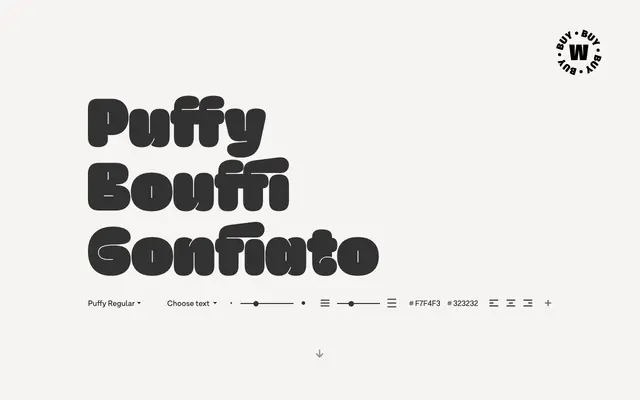
Puffy
A single-weight ultra-fat display typeface with inflated, cloud-like forms whose counterforms have been reduced to mere lines.
Designed by Gaspar Muñoz for W Type Foundry, Puffy pushes roundness to an extreme: strokes are so swollen that enclosed counters nearly disappear. A single Regular weight comes with stylistic alternates that shift the mood of the letterforms, offering a contrast between joyful and melancholic characters. Built for headlines and attention-grabbing applications where softness and visual impact are both required.
An ultra-heavy, inflated display typeface with pillowy, rounded forms so fat that counterforms collapse to a single line, placing it firmly in the novelty display category.